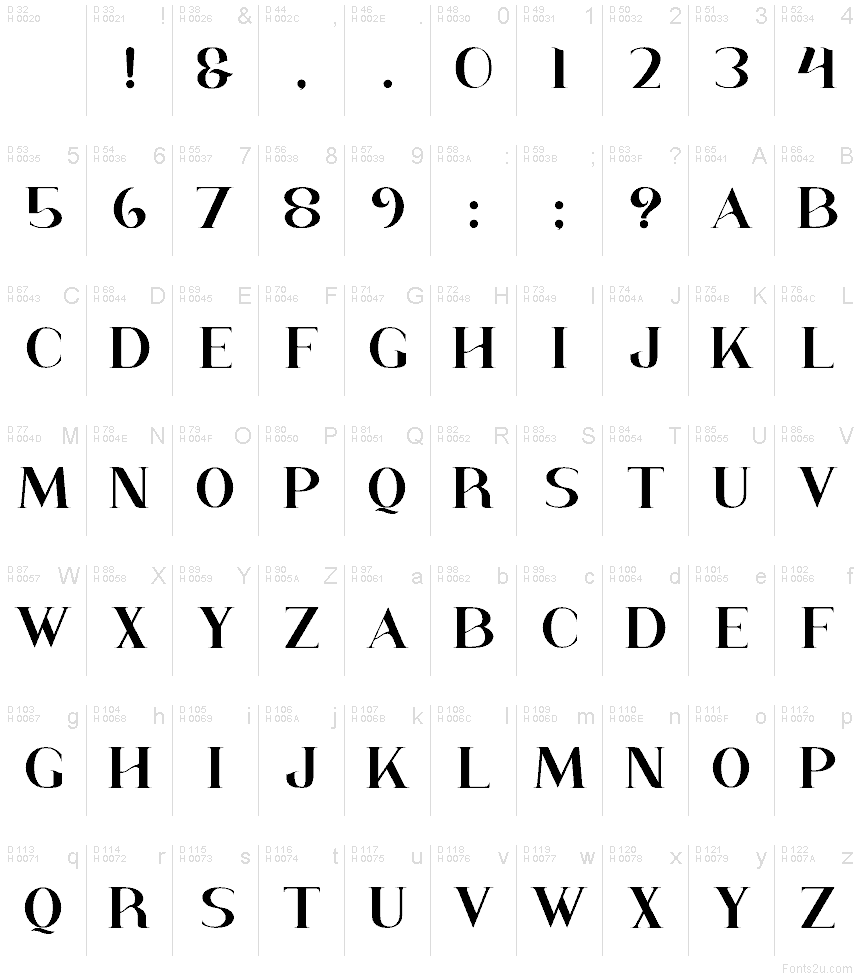
Kings Town
Kings Town font by Edy Wiyono is a free serif font that feels like it’s been cut from polished stone—tall, slender letters with sharp edges and sweeping inner curves. The spacing is tight and theatrical, so every word locks together like a bold headline, while the delicate hairlines keep it from feeling heavy or stiff. It carries a refined, almost royal mood that’s both modern and timeless.
Using Kings Town, titles instantly gain a sense of ceremony and drama, making this free font a strong choice for book covers, fashion branding, bottle labels, event invitations, posters, and bold website hero text. It thrives in large sizes where those sculpted shapes can really breathe; pair it with a clean, neutral sans serif for body copy to keep the typography crisp and readable.